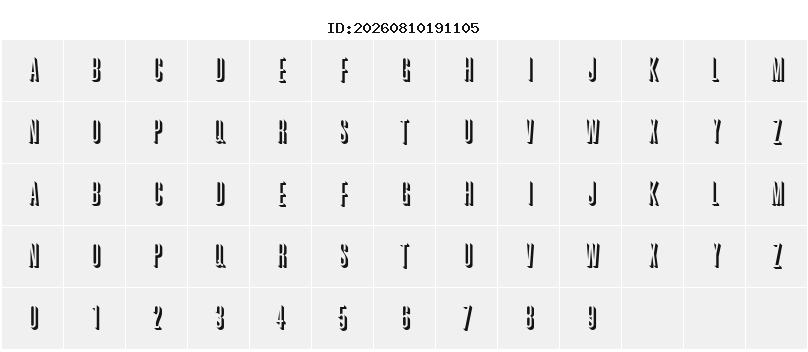
Quadrille Shadow Preview
About Quadrille Shadow.ttf
Quadrille Shadow.ttf is a modern, elegant sans-serif font designed for ultimate readability and visual harmony. Perfect for branding, headlines, web design, and print materials.